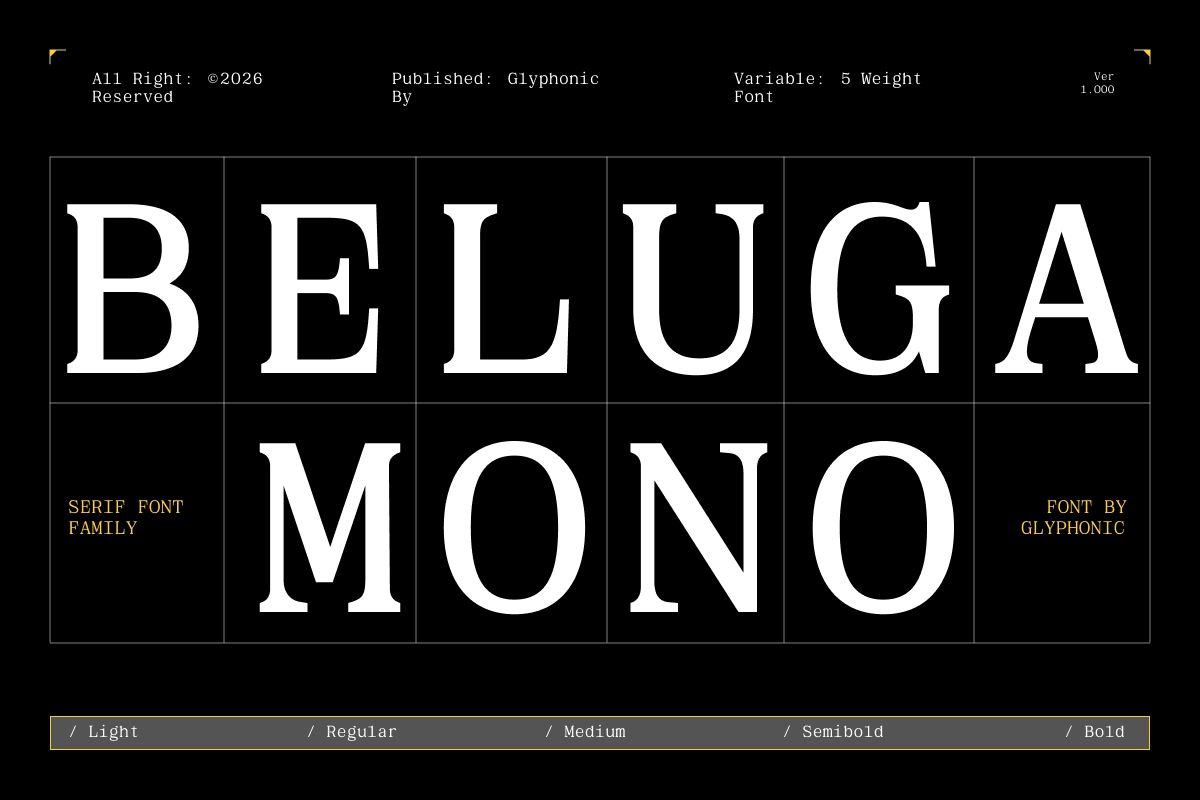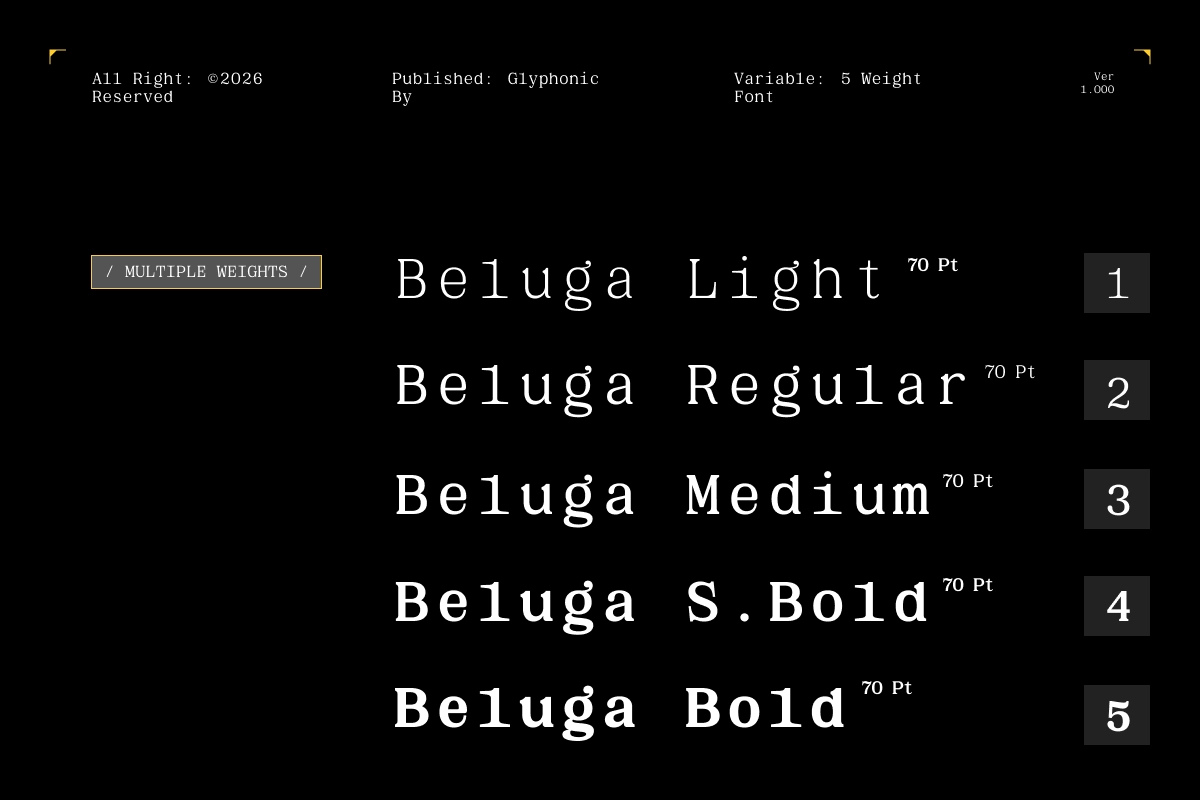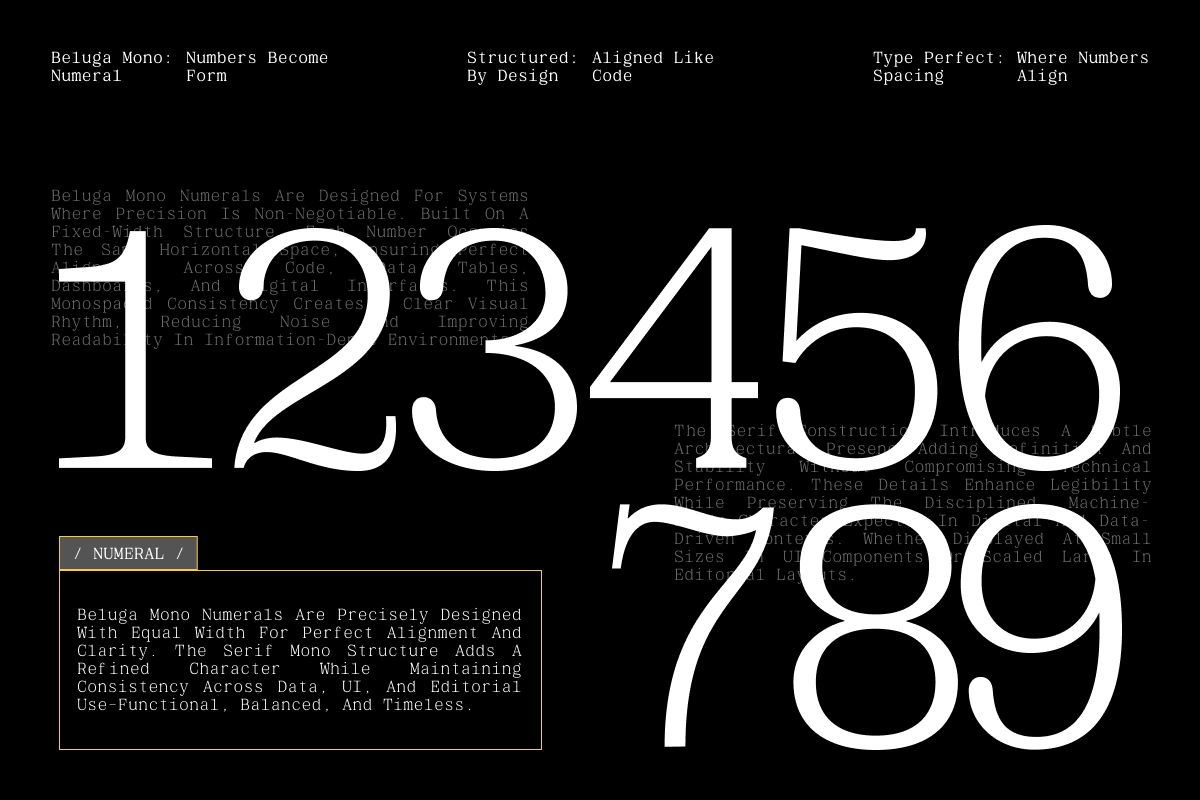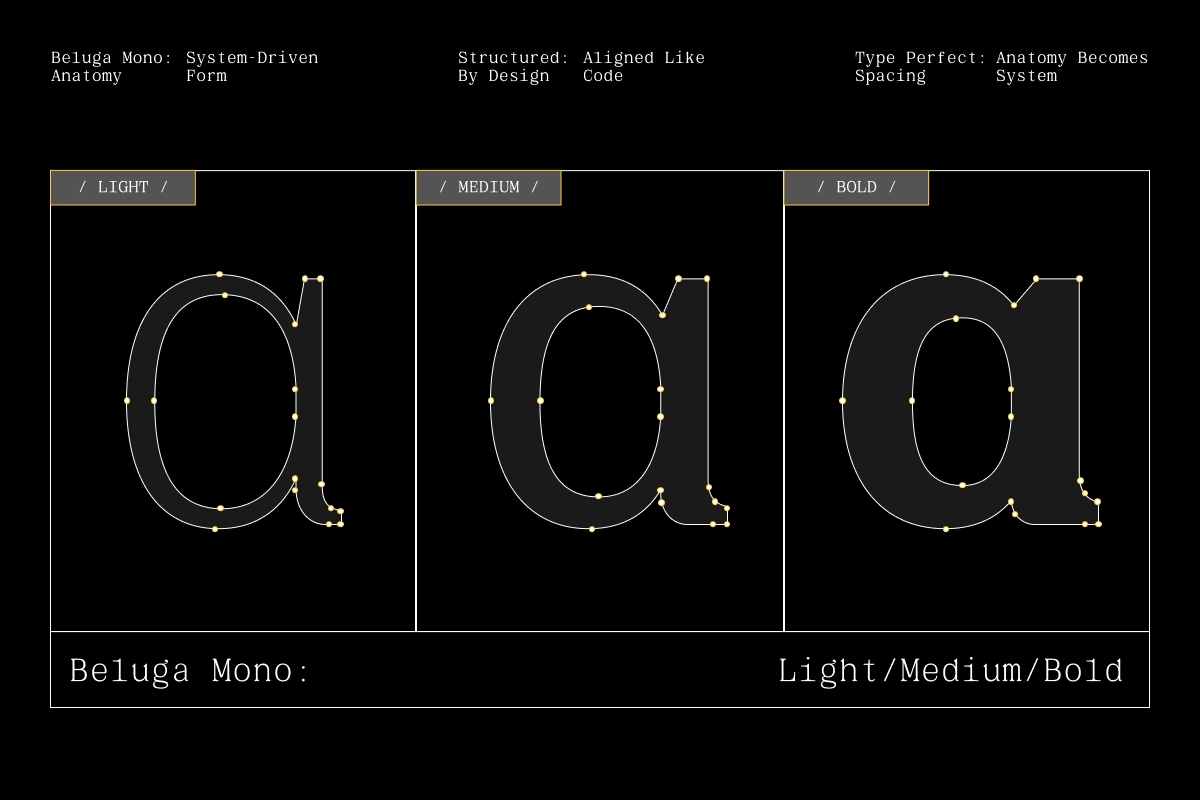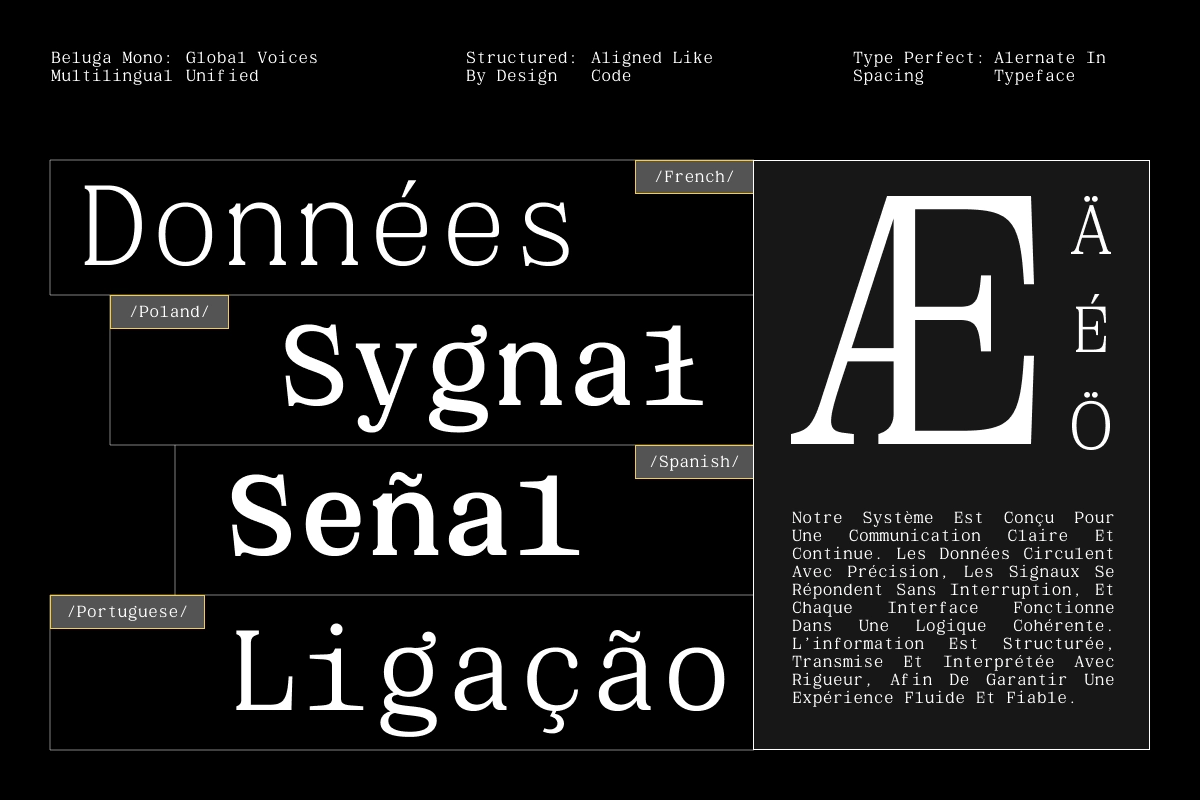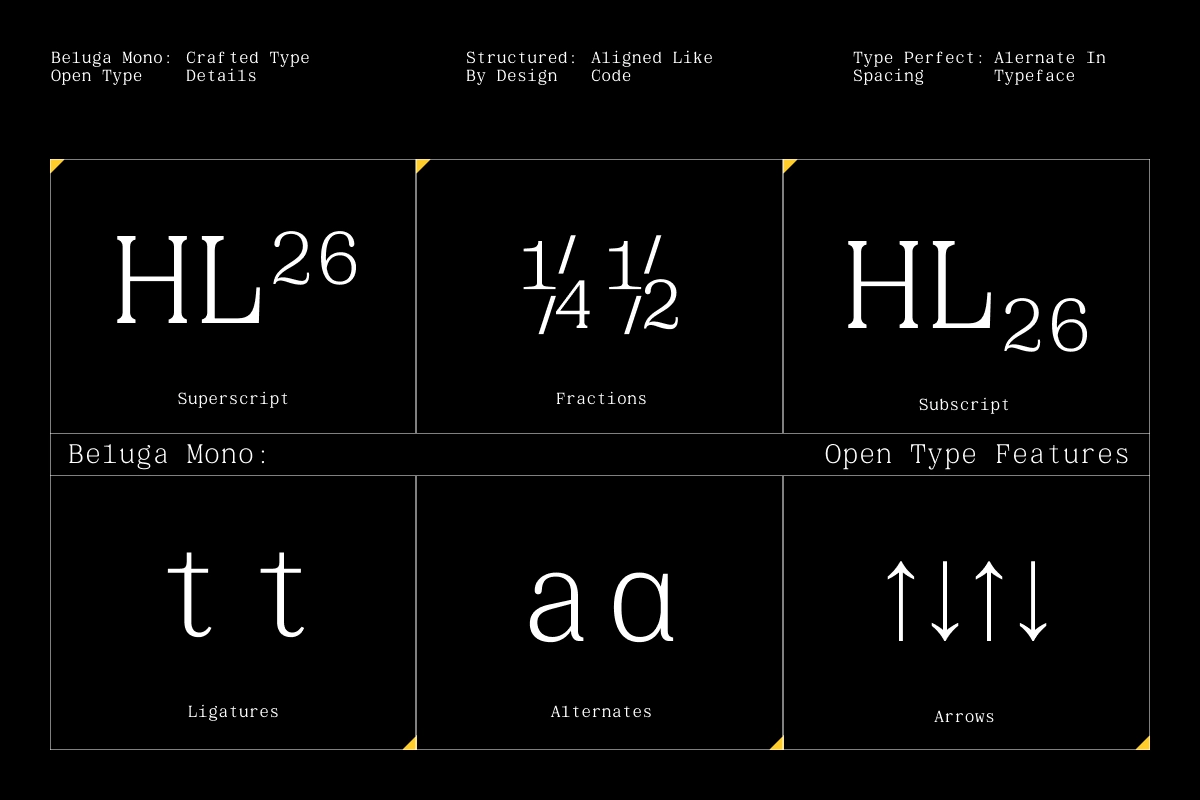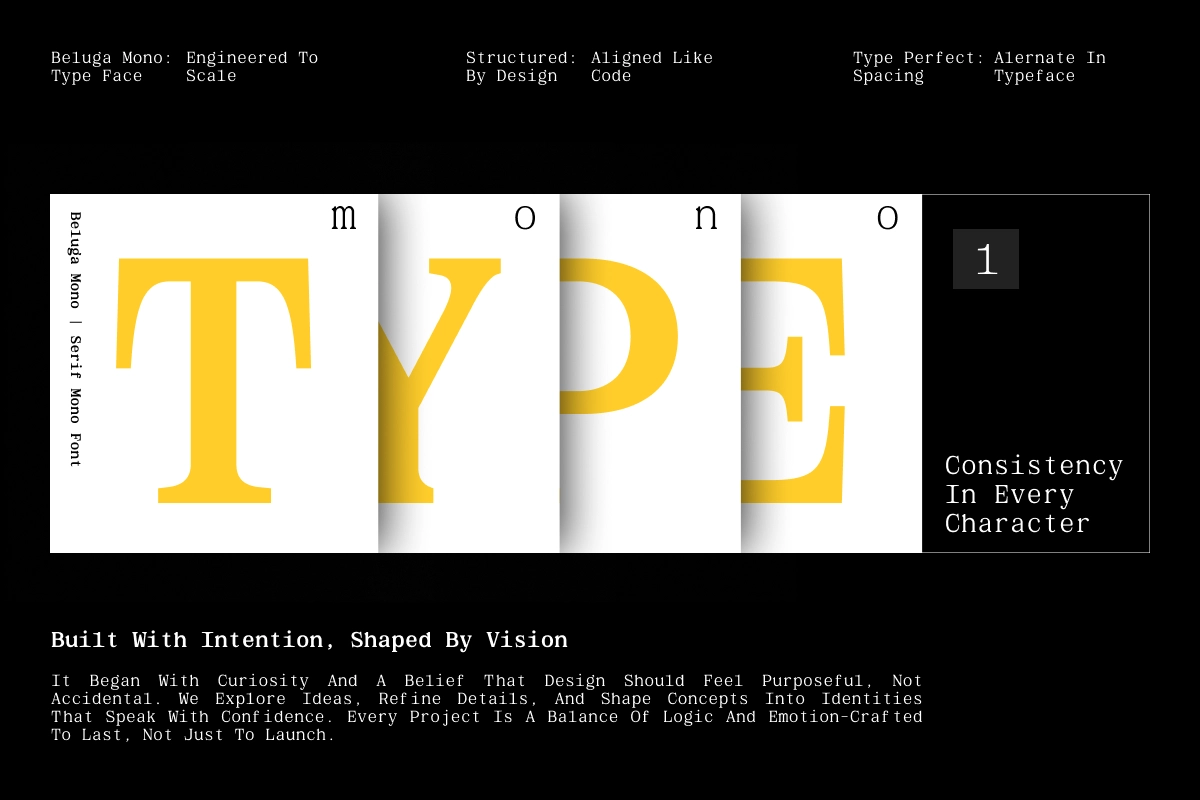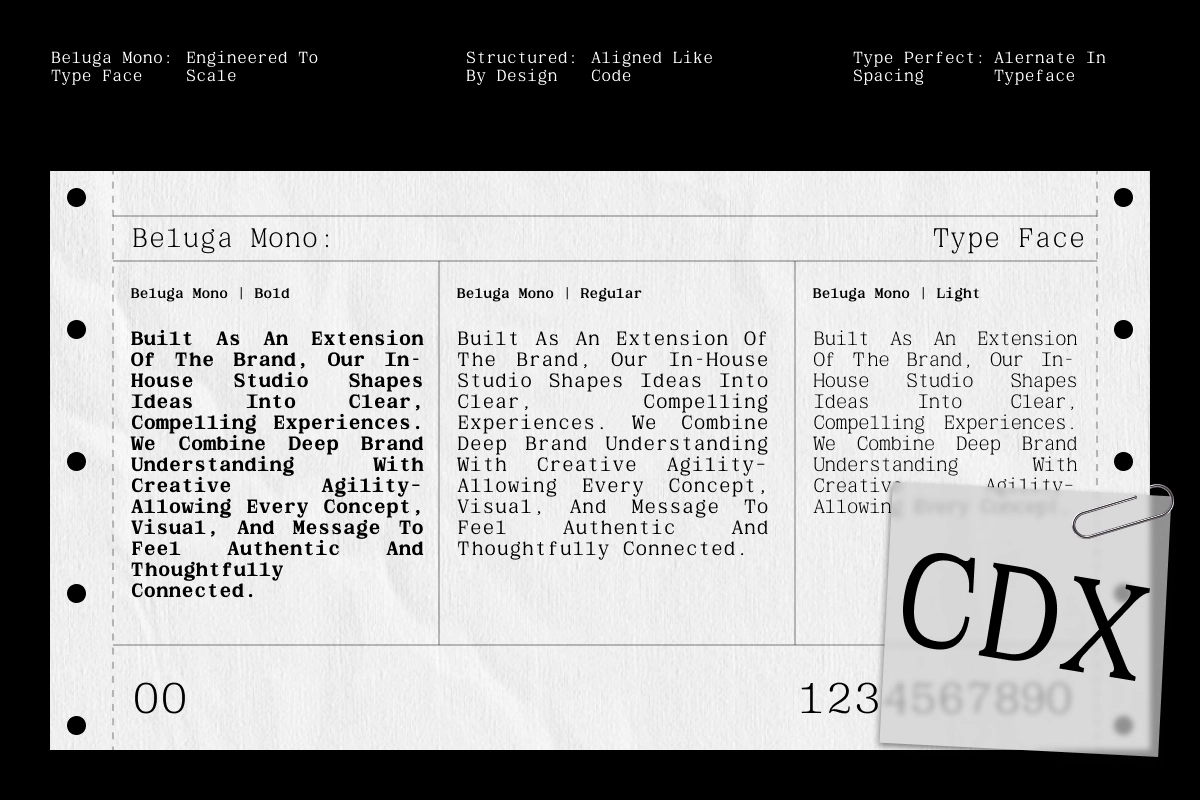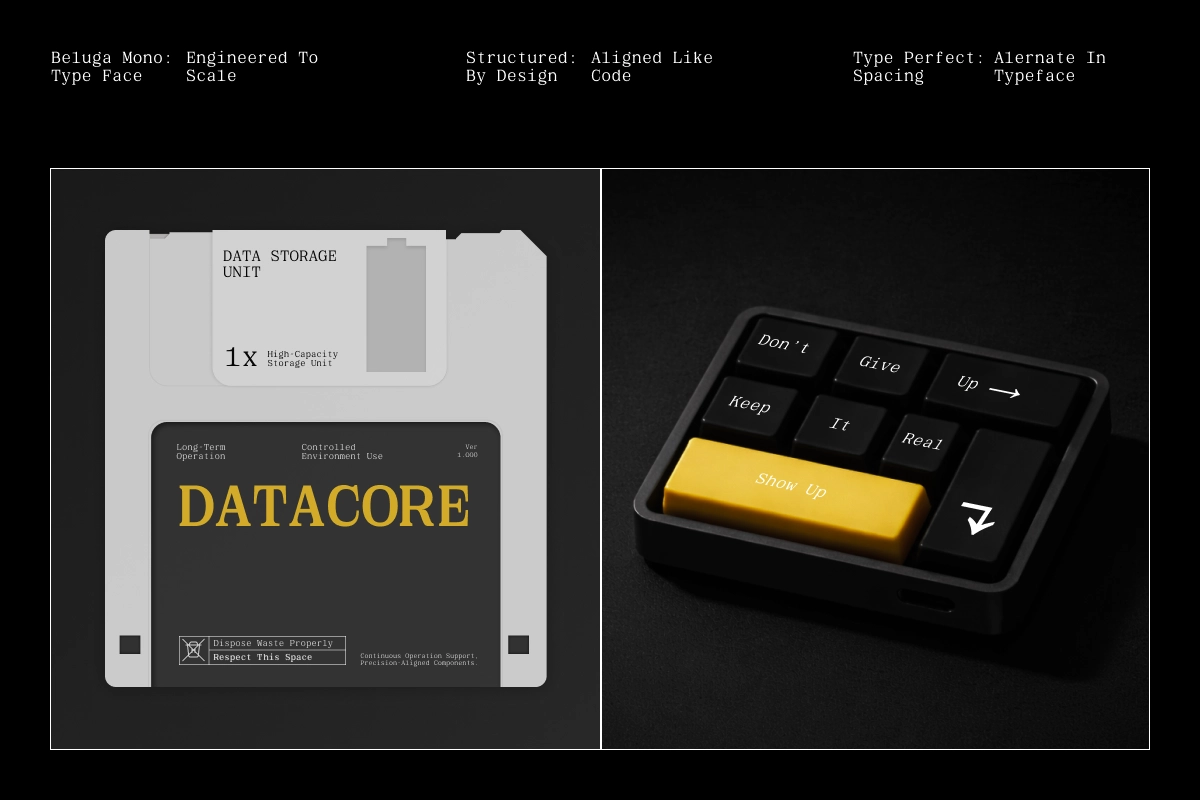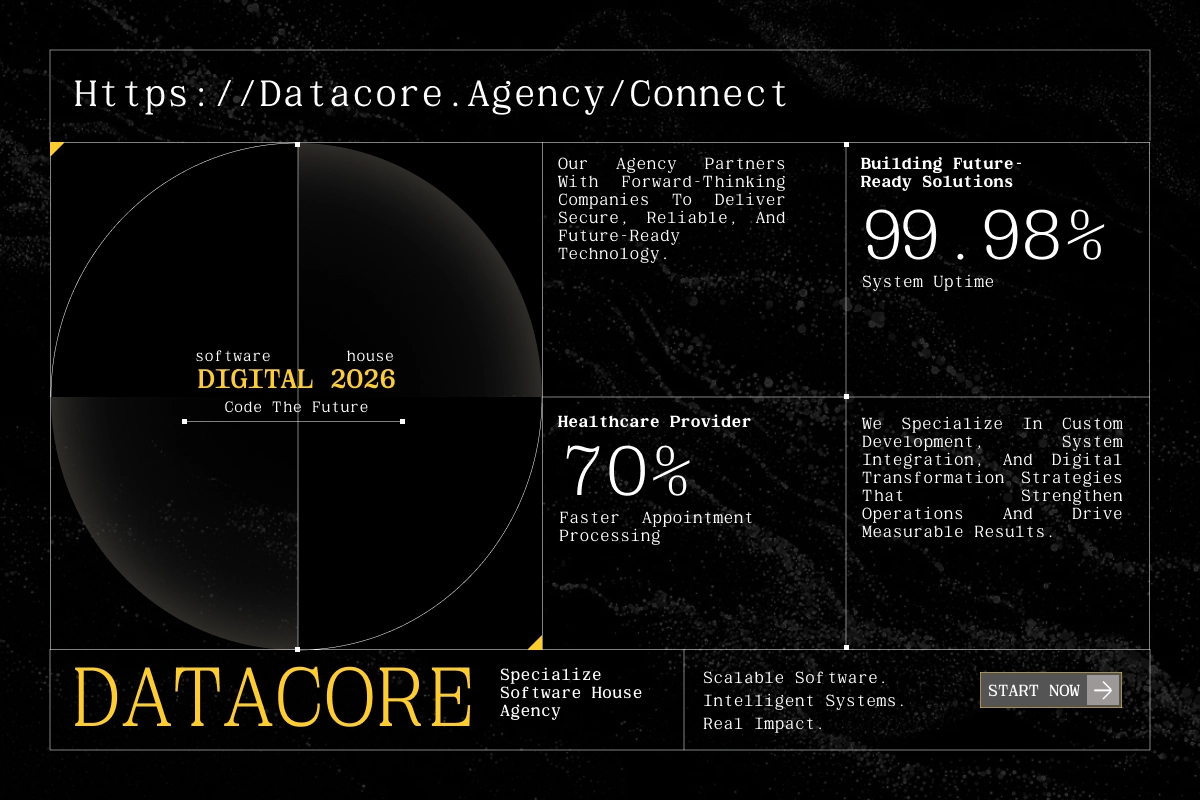
GC Beluga Mono - Elegant Modern Mono Serif Font
GC Beluga Mono – Elegant Modern Mono Serif is a contemporary typeface that blends the precision of monospaced structure with the elegance of refined serif detailing. Built on a strict grid system, it delivers a clean, technical feel while maintaining a sophisticated and expressive character.
Designed for balance and clarity, GC Beluga Mono combines uniform spacing with subtle serif accents, creating a smooth visual rhythm across text. Its variable weight system allows for flexible hierarchy and adaptability, making it ideal for editorial, branding, and digital design where precision meets style.
• Monospaced Serif Construction
• Numerals & Punctuation
• Variable Font